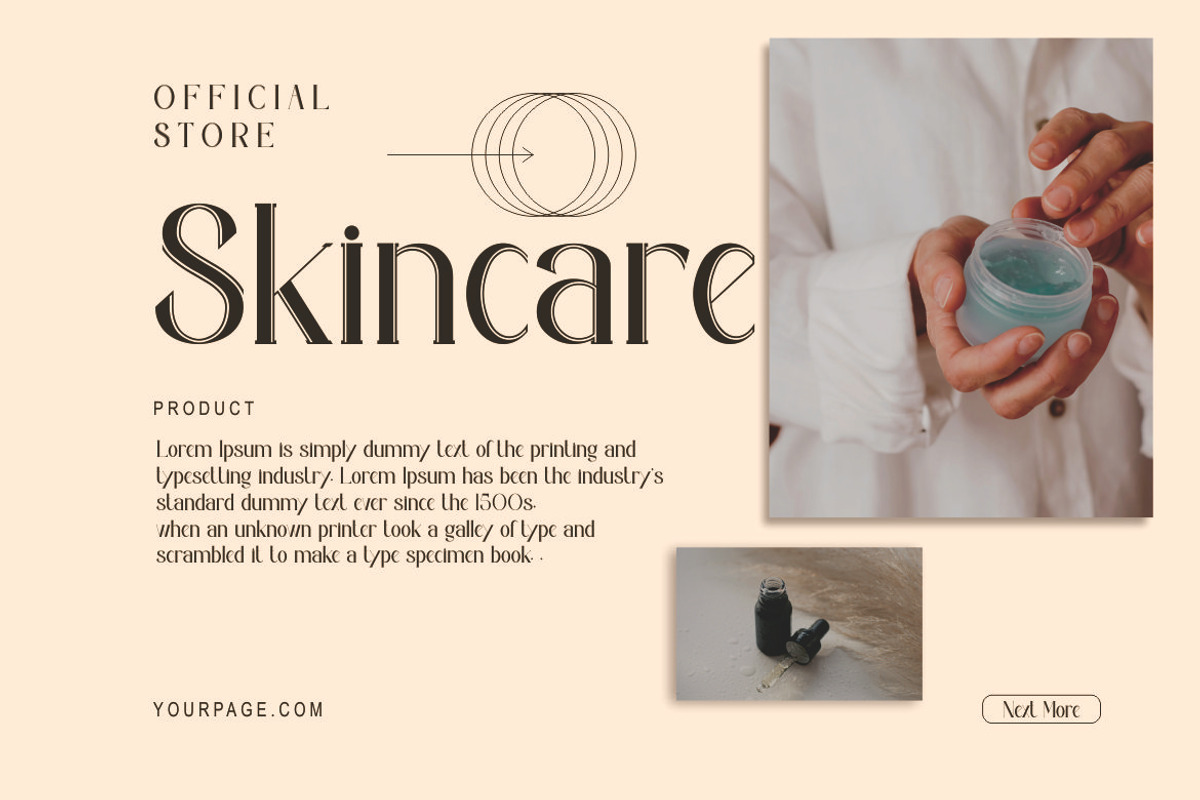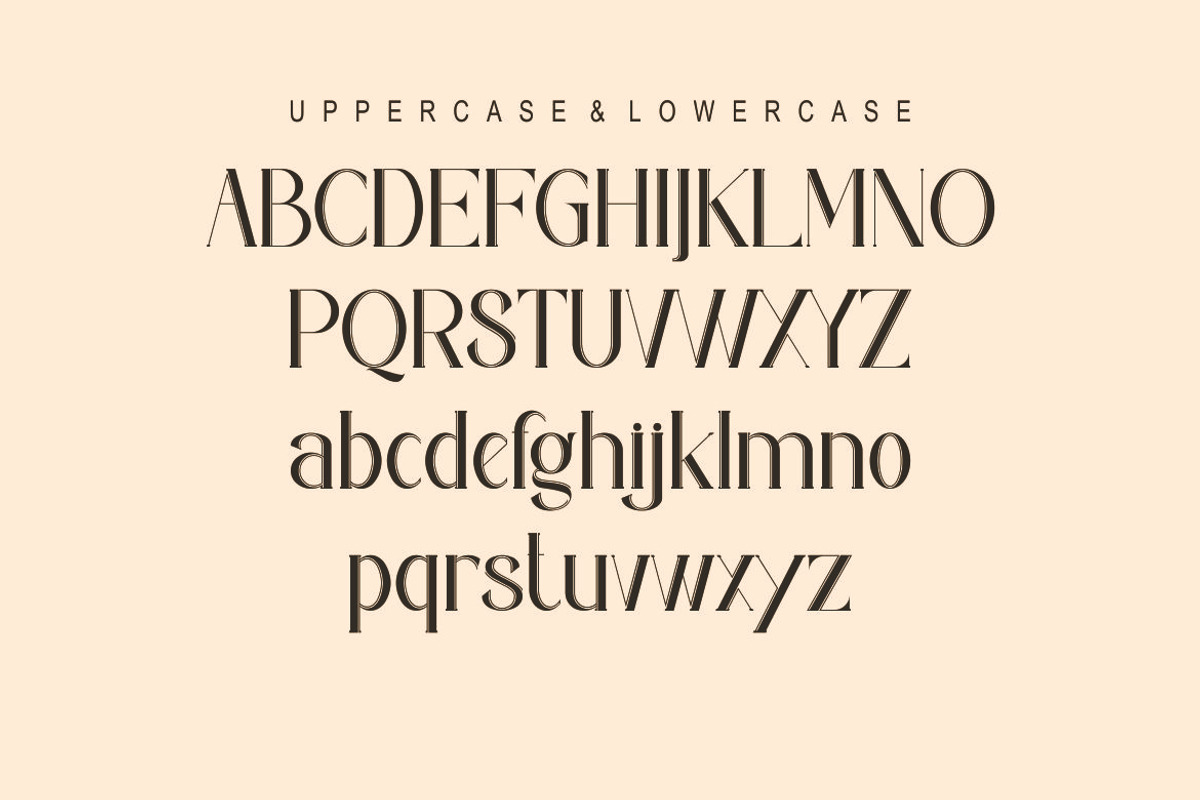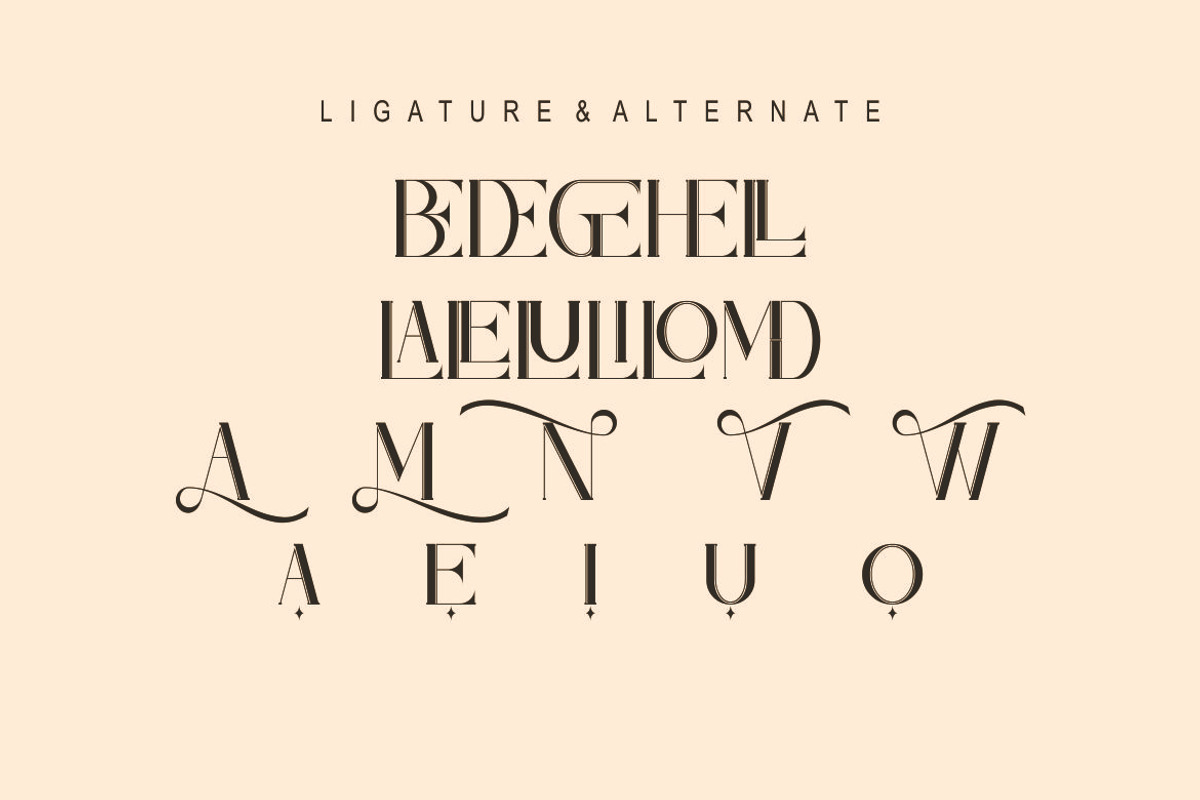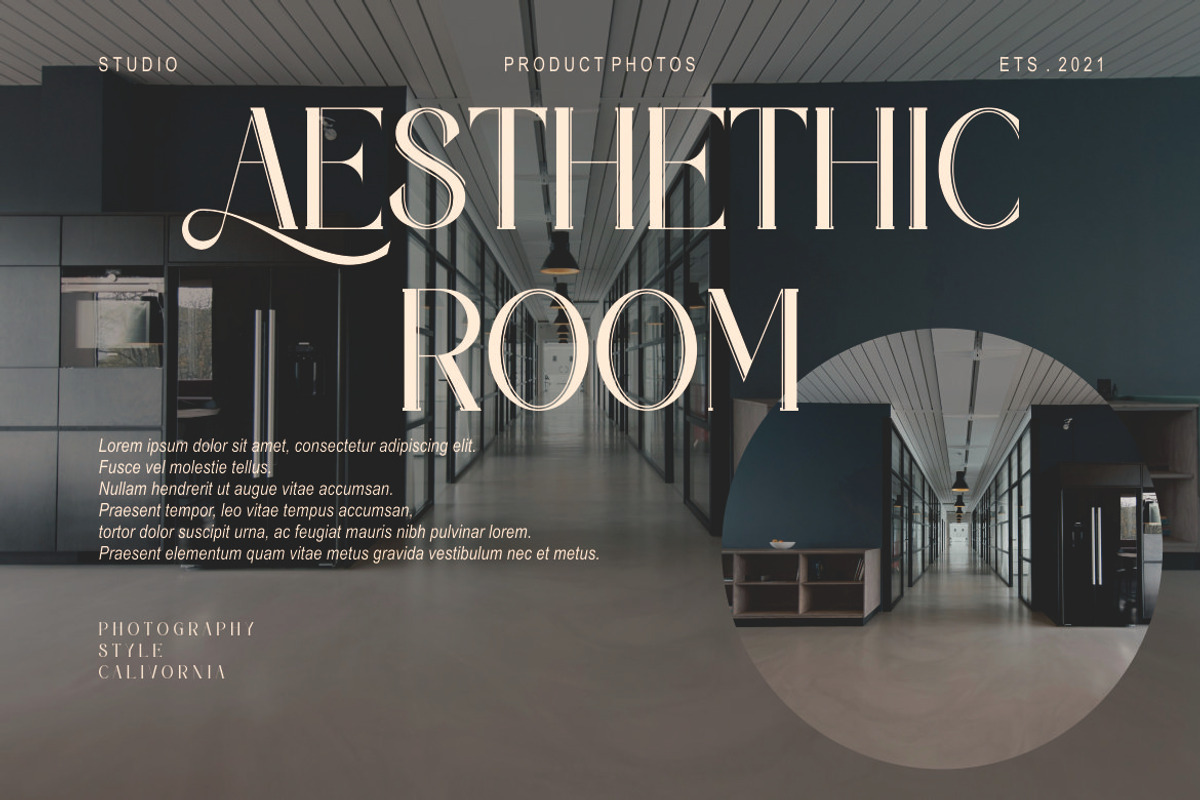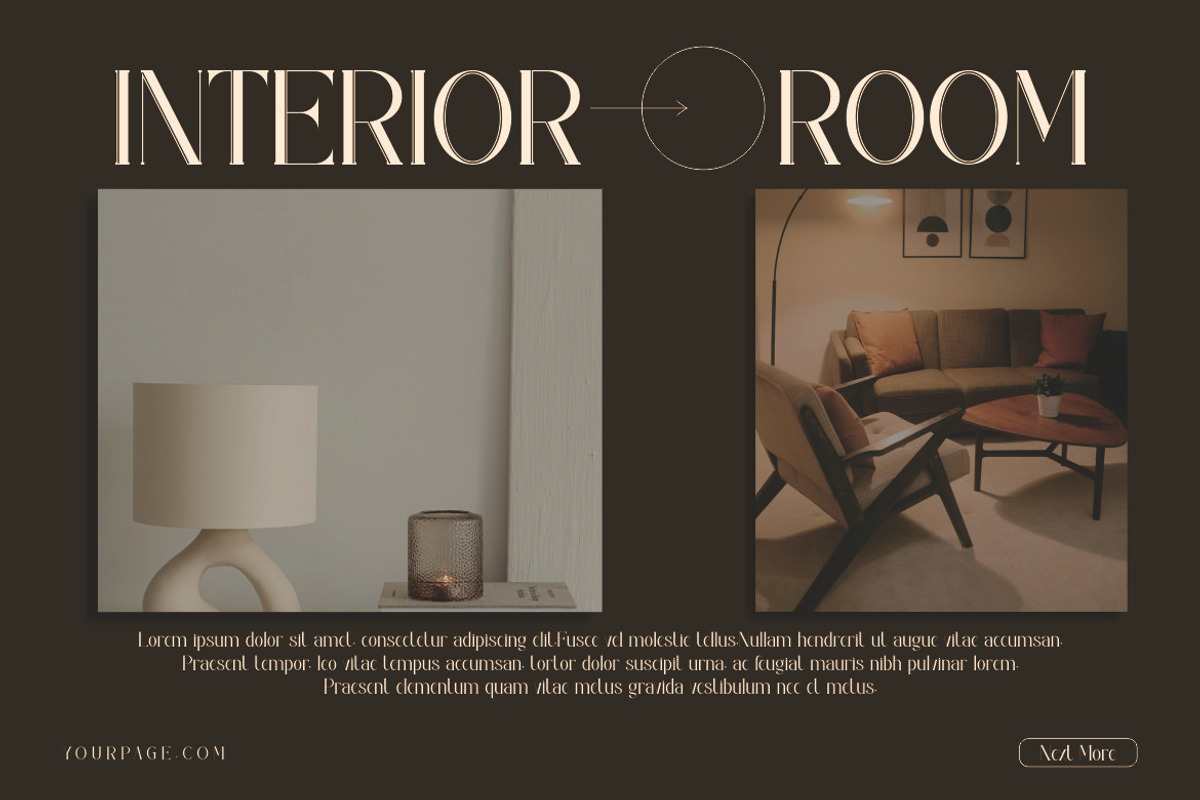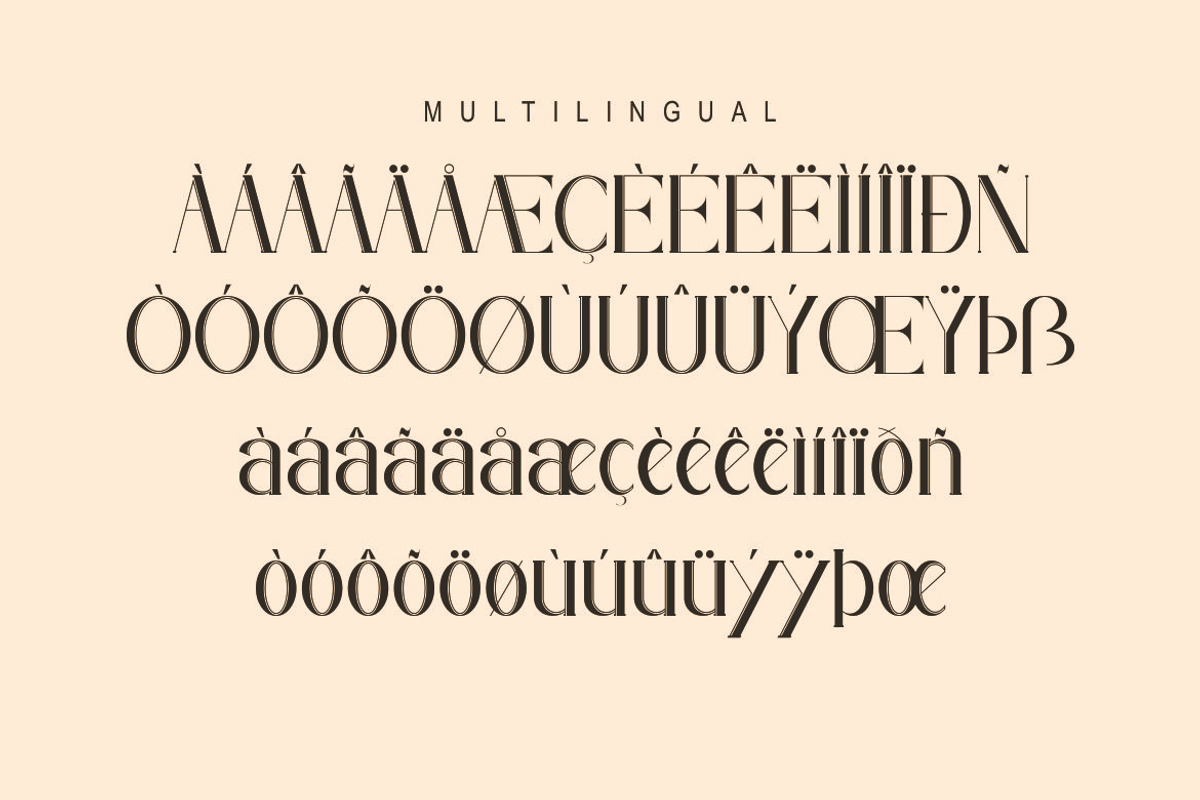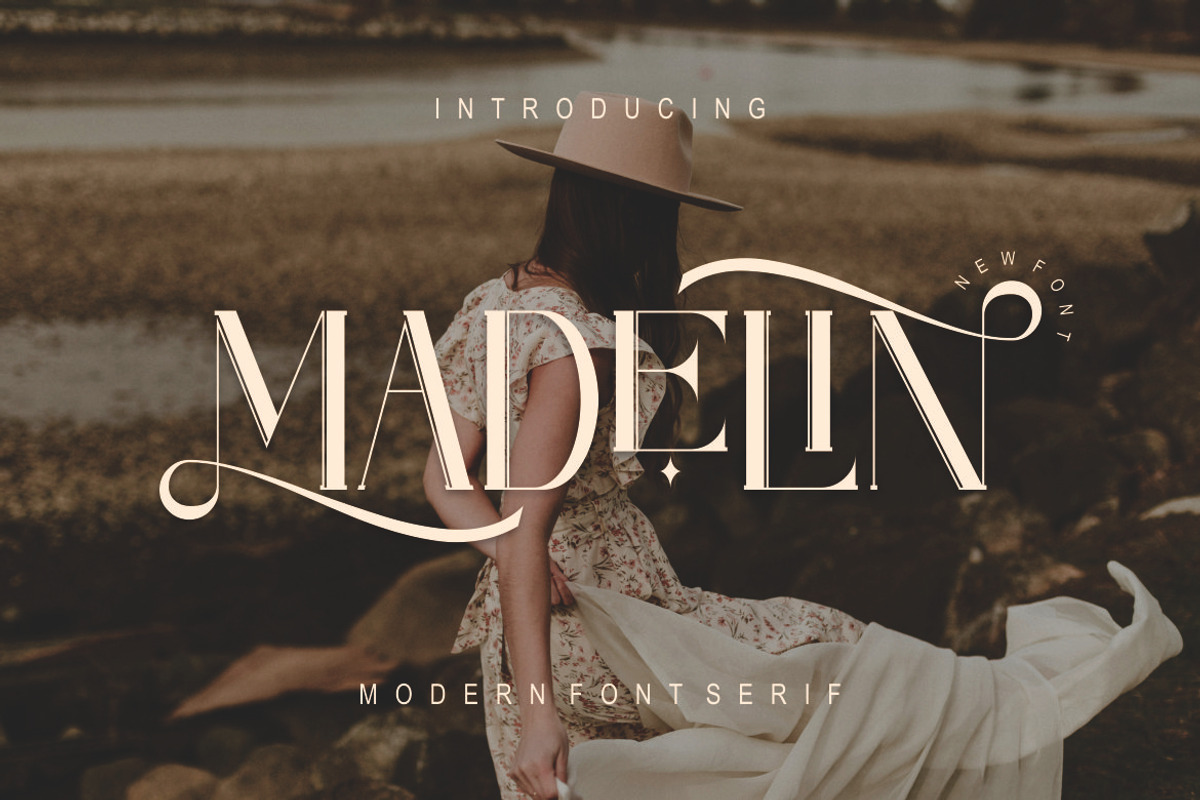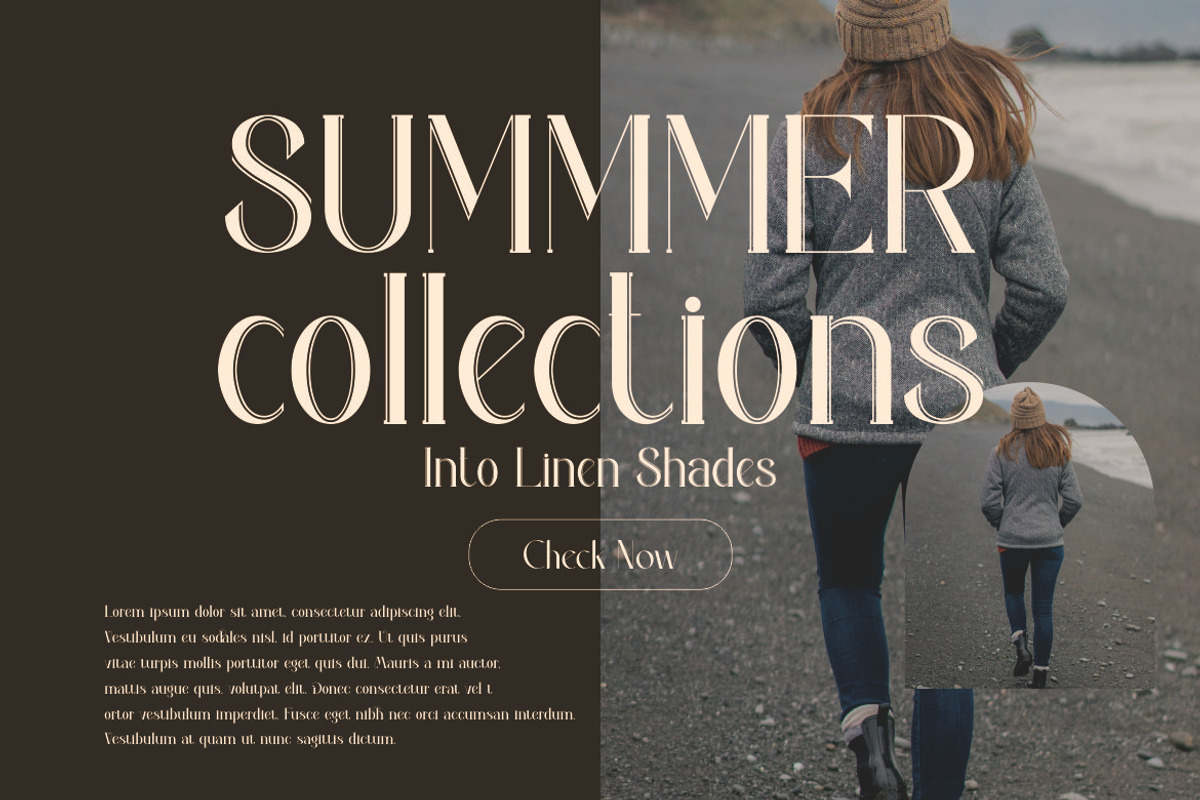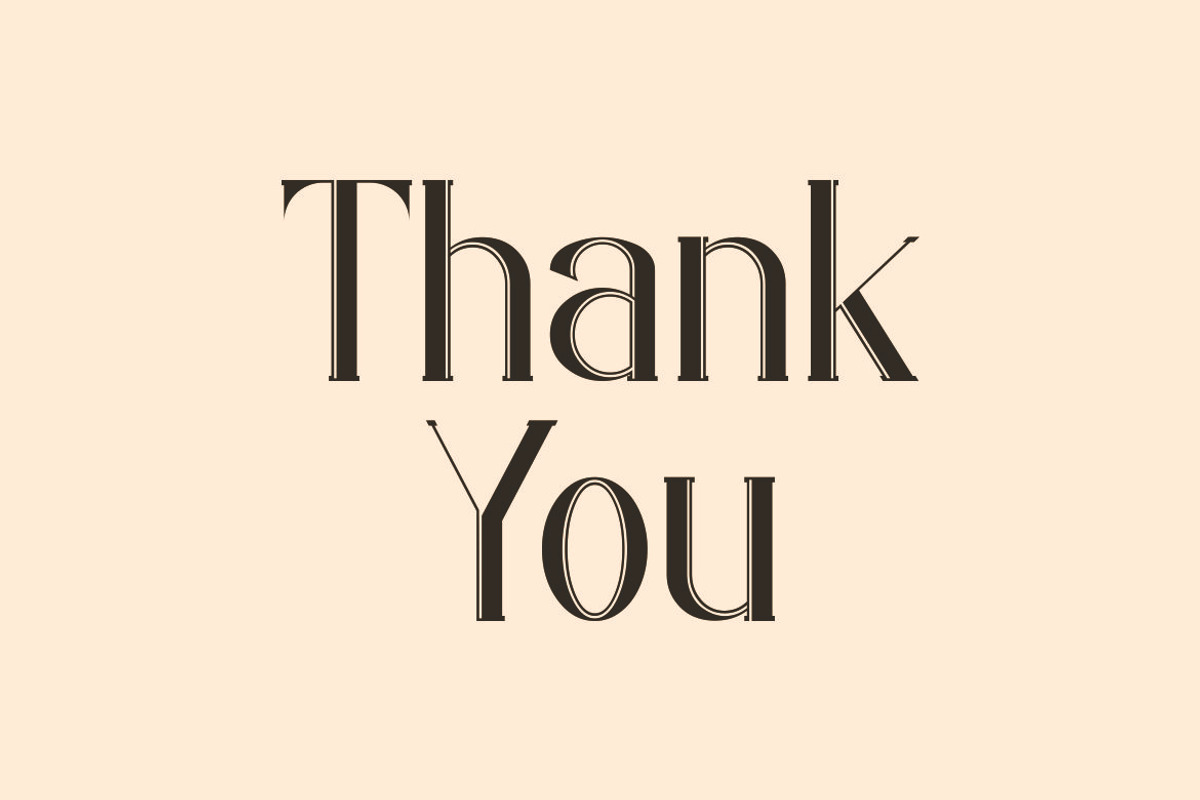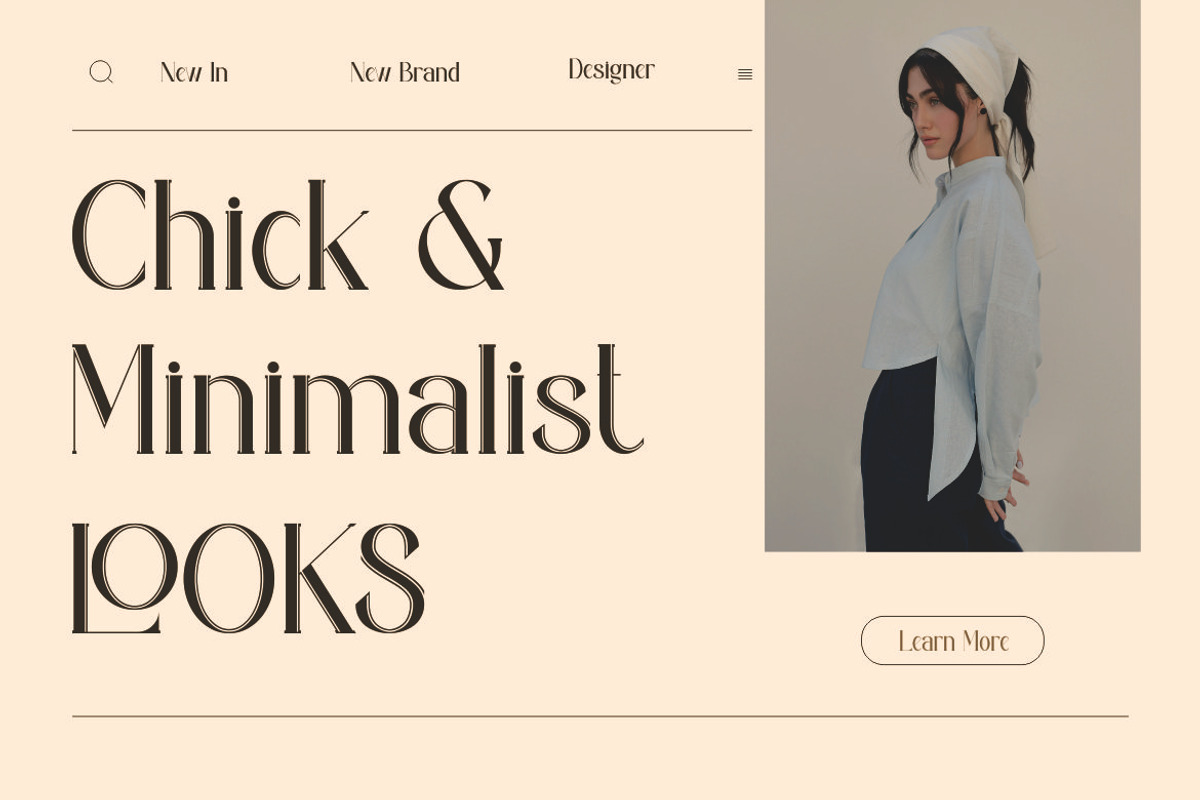
Madelin
Proudly present our new product Madelin Font
* Lavenia Font is a modern and authentic font.
* Perfect for both professional and branding needs of a product.
* This font is suitable for any branding project like quotes, logo, blog header, poster, banding, letter, invitation, stationery,
* etc... Designed as a versatile and flexible that can be used on a range of projects and mediums.
* outstanding in a wide range of contexts.